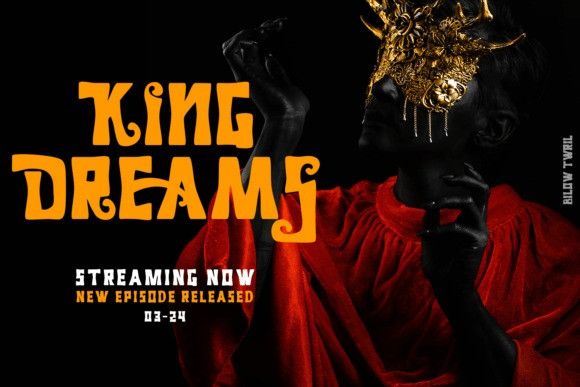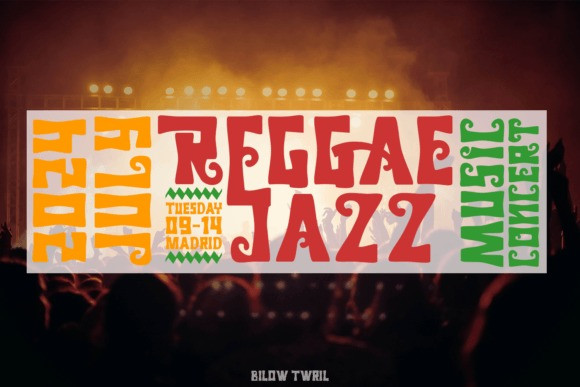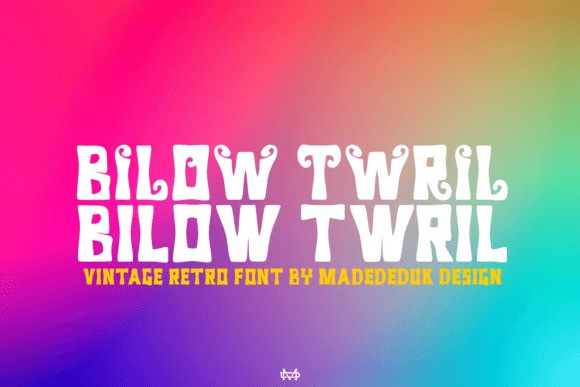
Billow Twril Font
Billow Twril Font is a charming vintage retro display font. Its curvaceous and swirling letterforms exude a sense of nostalgia, reminiscent of the elegant typography from the mid-20th century. With its playful yet sophisticated style, Billow Twril adds a touch of whimsy and personality to any design project. Whether you’re working on branding, posters, invitations, or other creative endeavors, this font will transport your audience to a delightful world of vintage charm.